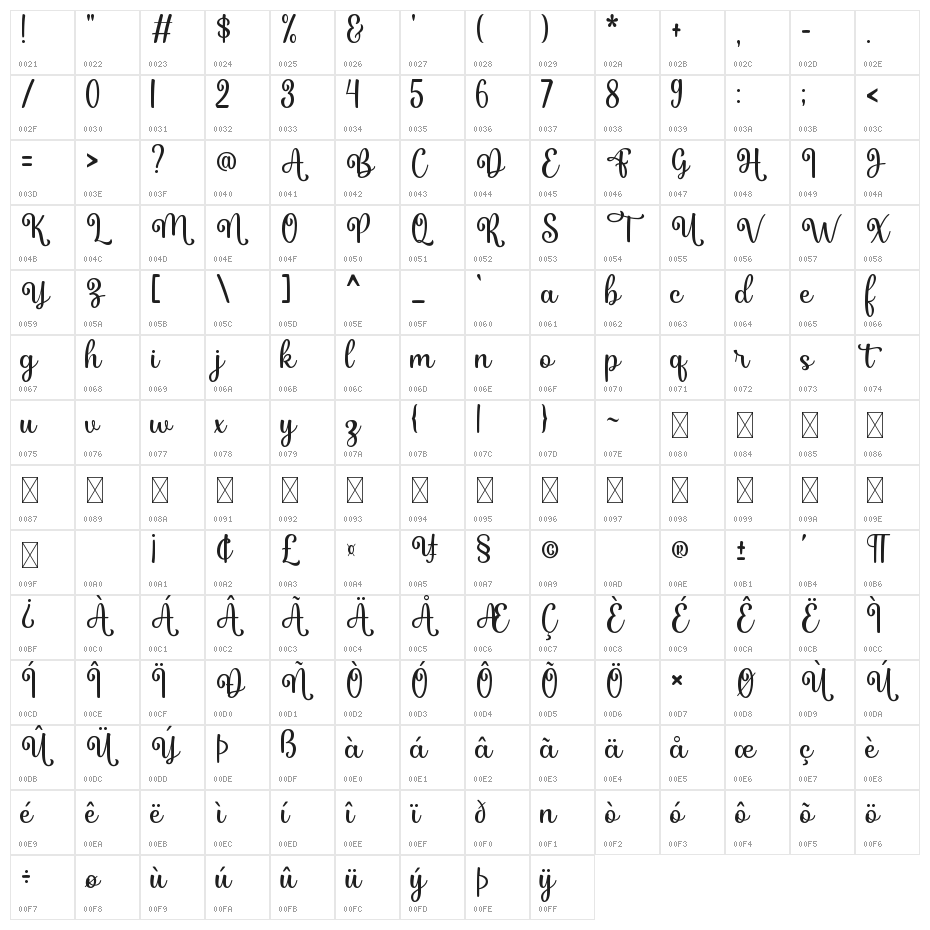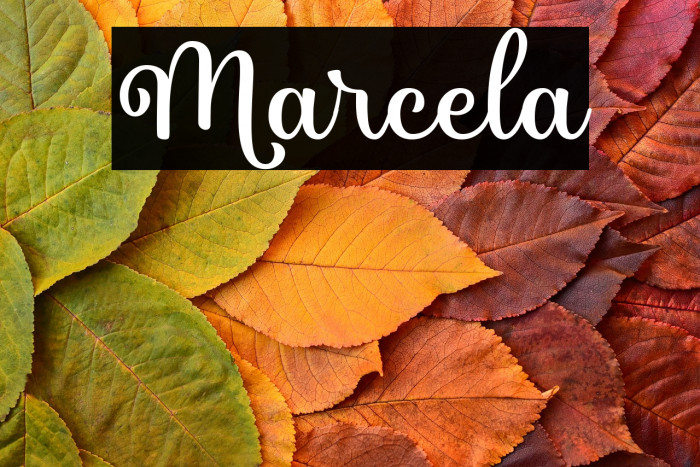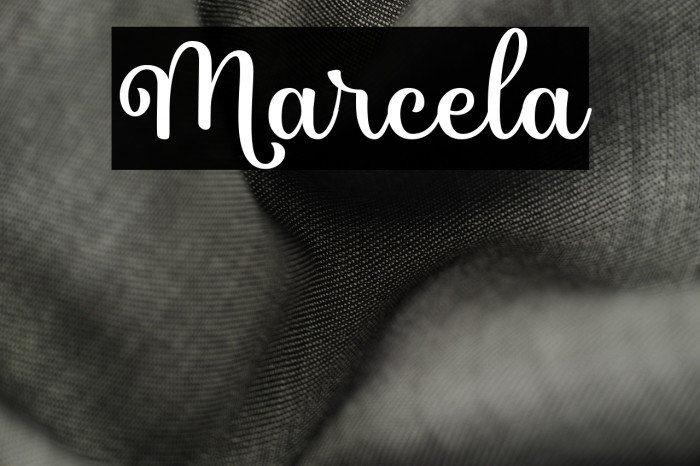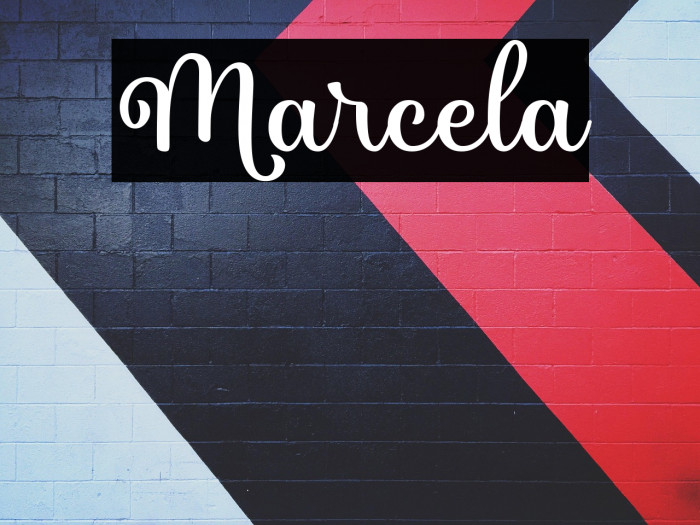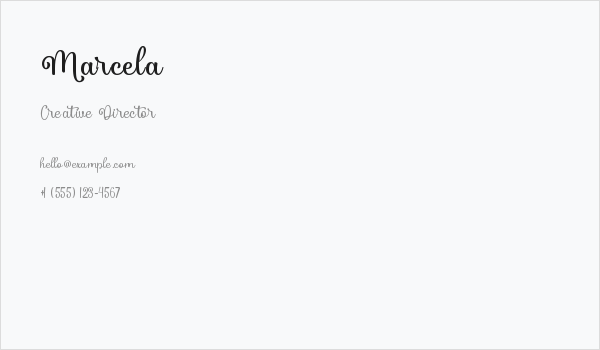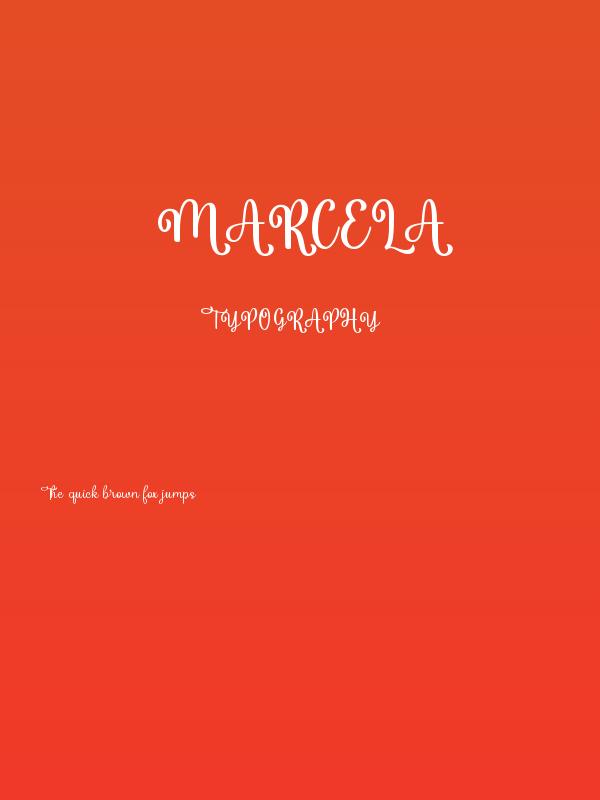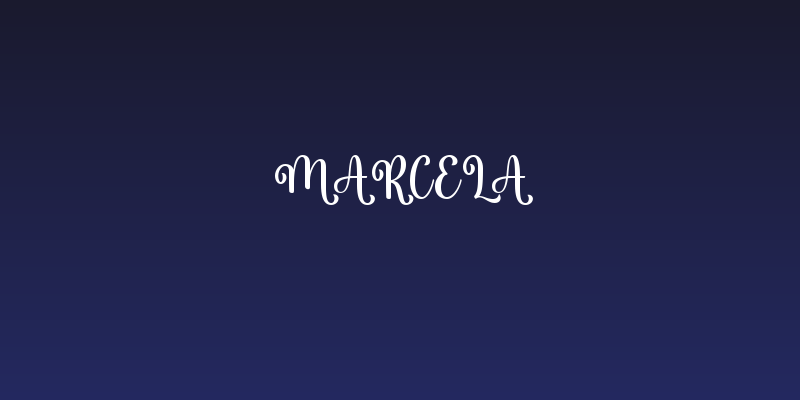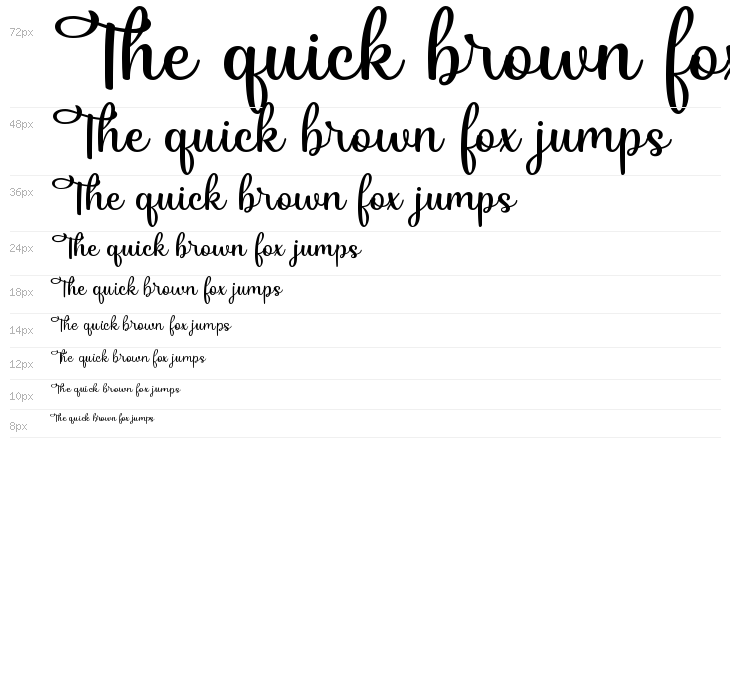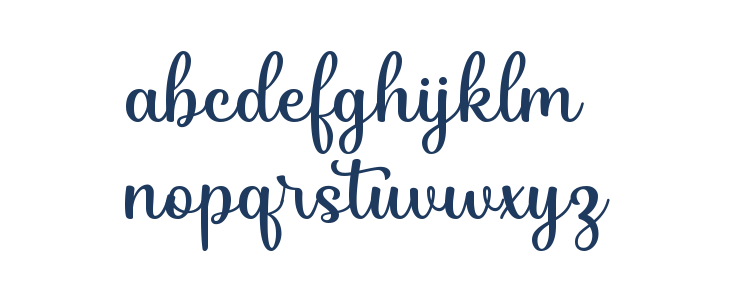
Marcela Font
Marcela Description
This font features a playful and elegant script style with a flowing, cursive design. The uppercase letters are characterized by their looping, decorative flourishes, while the lowercase letters maintain a consistent, smooth flow. The numerals are clear and maintain the same whimsical style, ensuring readability. Special characters are designed to complement the overall aesthetic, adding a touch of sophistication. The font's strokes are moderately thick, providing a medium contrast that enhances its legibility and charm. Its overall appearance is both modern and classic, making it versatile for various design applications.